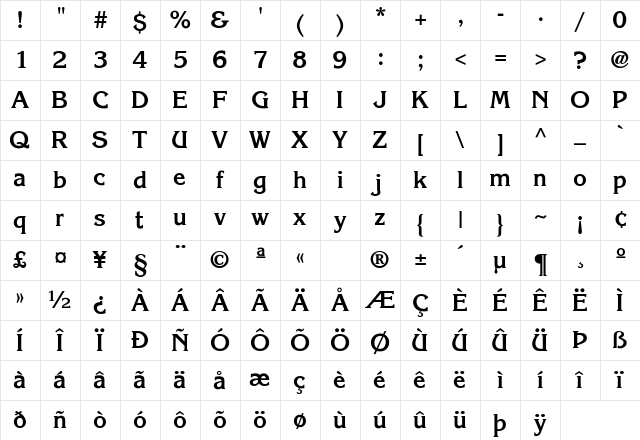
RRLight Bold Regular
Design Context for RRLight Bold
RRLight Bold is a composed and adaptable typeface that performs quietly and consistently across a wide range of design contexts. Its bold stroke weight gives it real presence on the page.